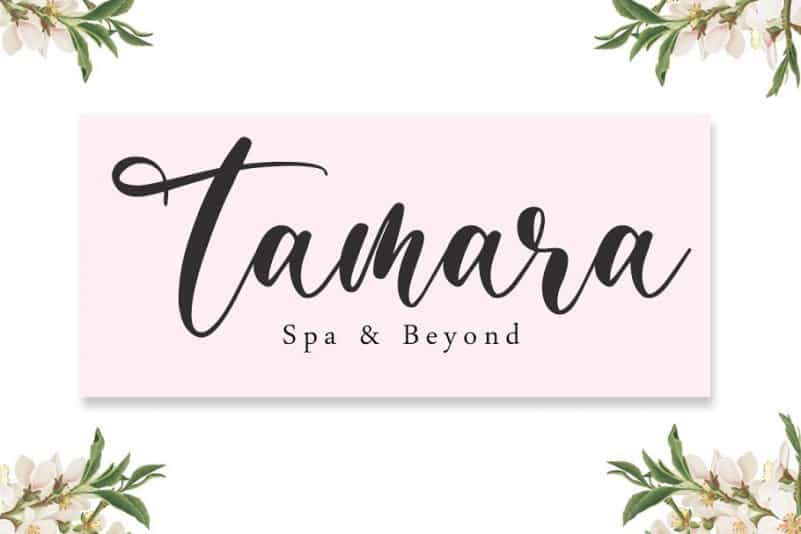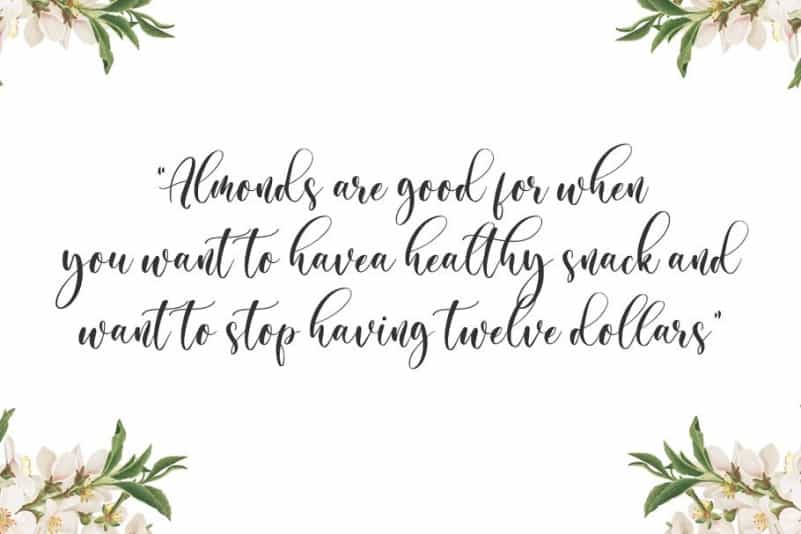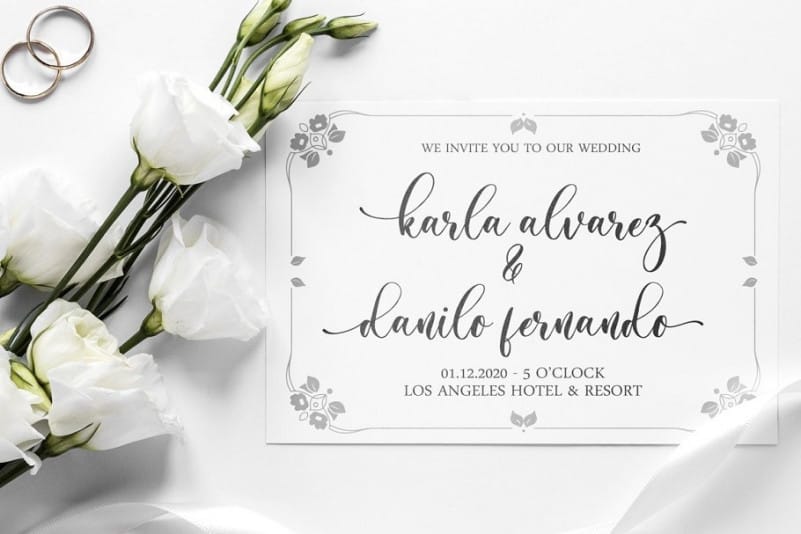
Almond Whisp Calligraphy Font
Almond Whisp Calligraphy Font is a new calligraphy typeface that feels beautiful classy, elegant, and modern. Made from font designer named Sronstudio. Perfect for crafting, branding, invitation, stationery, wedding designs, social media posts, advertisements, product packaging, product designs, label, photography, watermark, special events or anything.